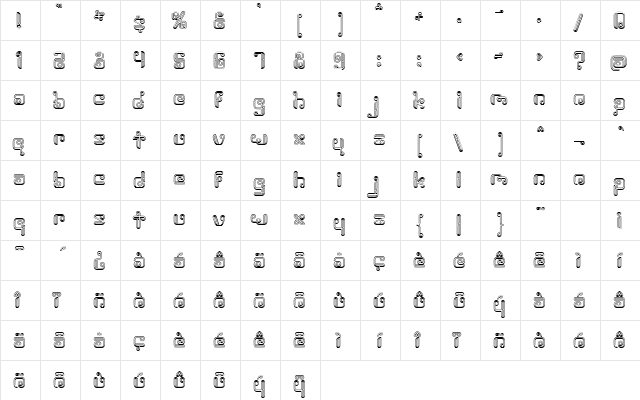
Rollover Outline
| Style | Outline |
Design Context for Rollover Typeface
Rollover is built around its visual character rather than neutral utility — its distinctive forms are designed to make an impression at display sizes.
Font Pairing: Pair with a clean neutral sans-serif for body copy to let Rollover's character lead without overwhelming the composition.
Pro Tip: Use Rollover exclusively at display sizes — it was designed to be seen, not read at length. Let a neutral companion handle body copy.